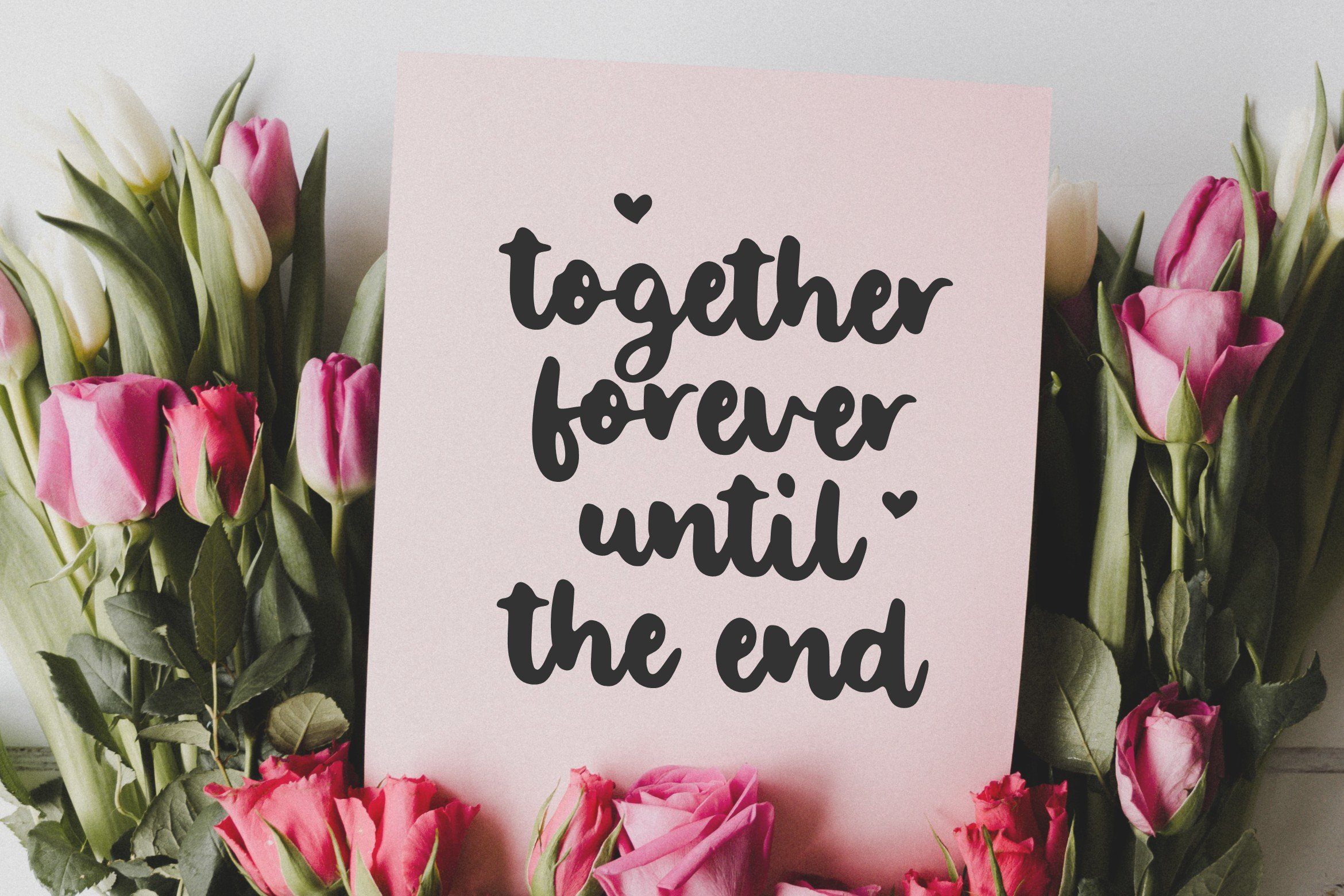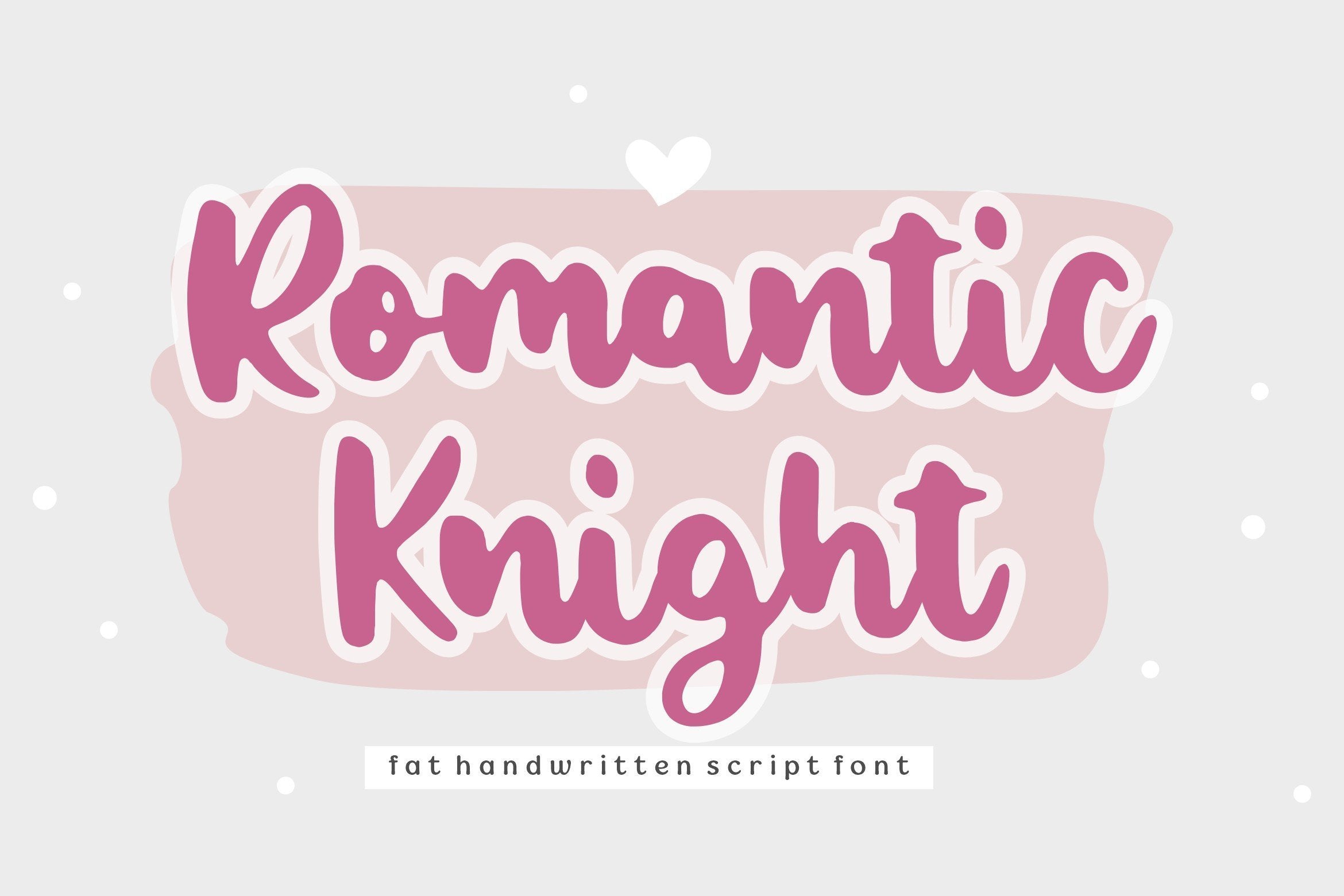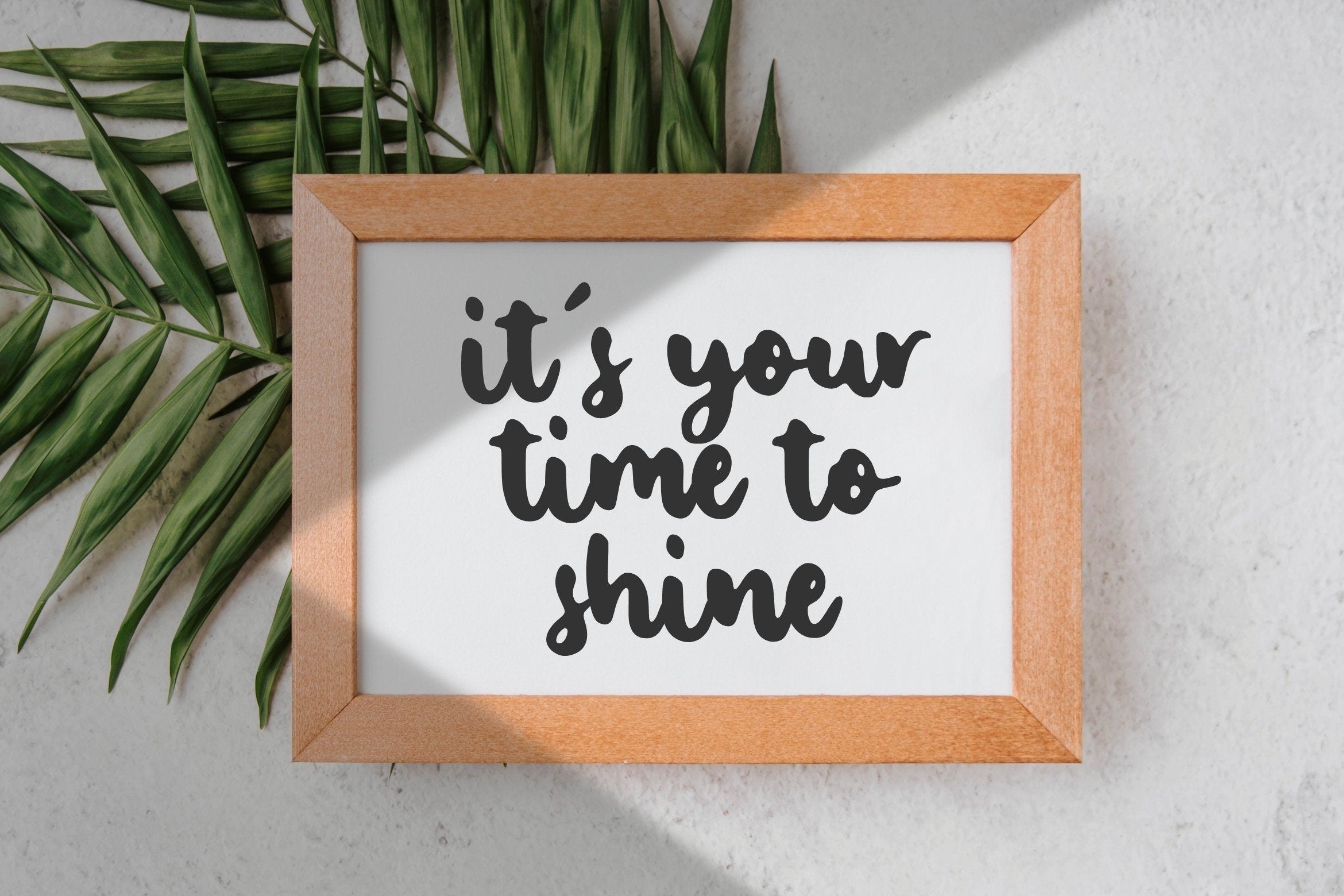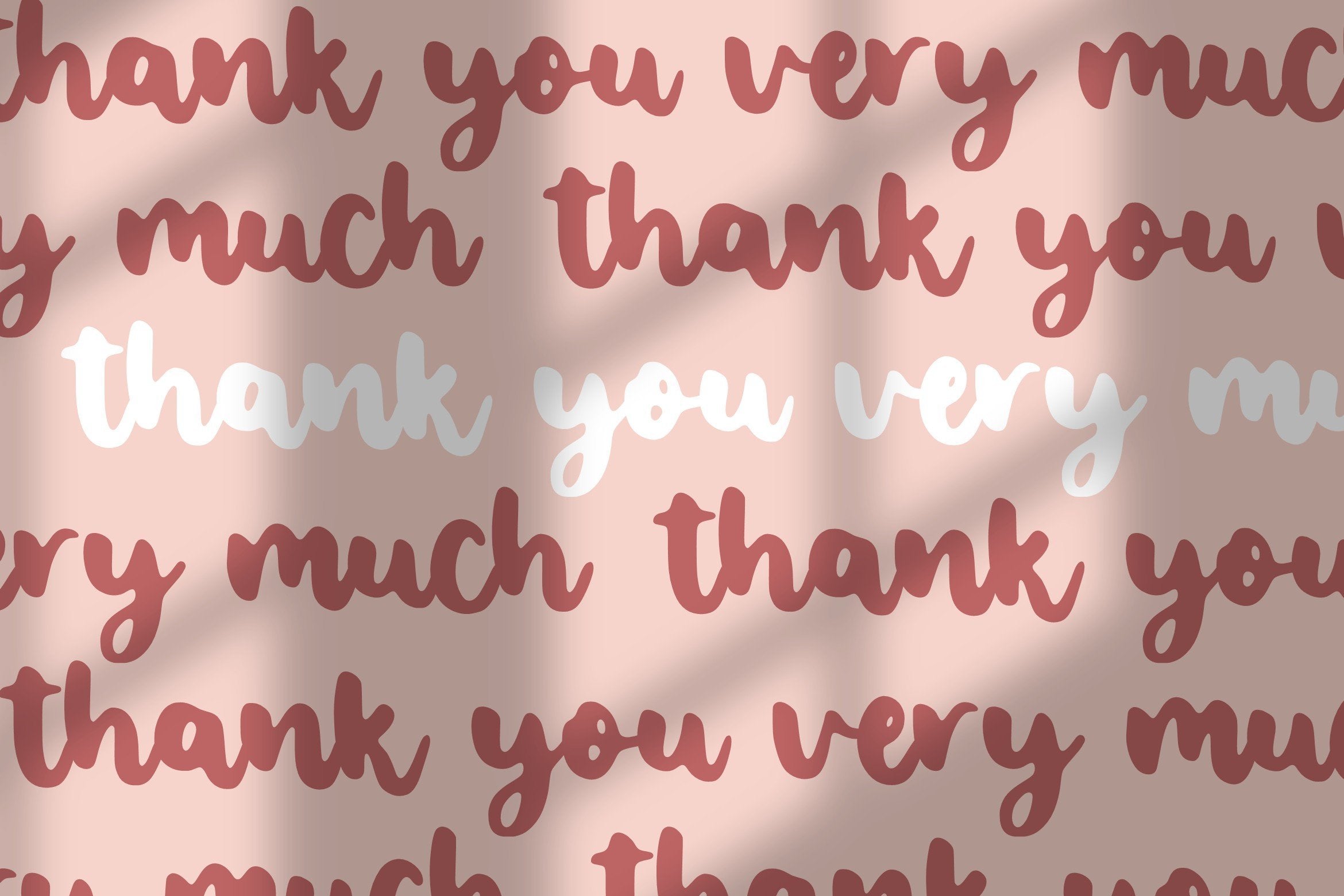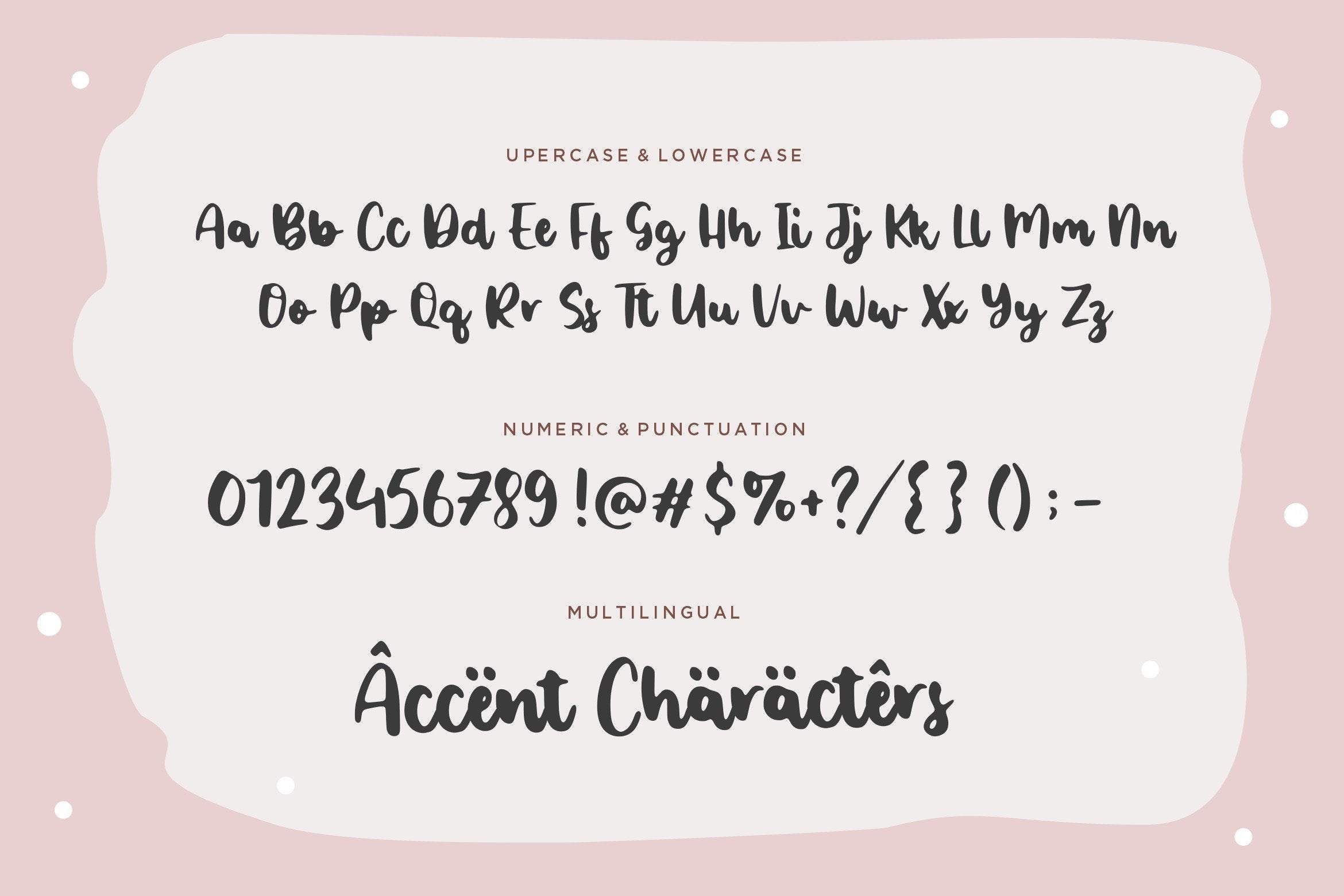
About Romantic Knight Handwritten Script Font
Introducing by Balpirick Studio. Proudly Present, Romantic Knight Font. Romantic Knight is a Handwritten Script Font. Romantic Knight is a flowing handwritten font, described by an elegant touch, perfect for your favorite projects. Fall in love with its incredibly distinct and timeless style and use it to create spectacular designs! This creative font will look great on baby clothing, wall art, fashion, magazines, children’s books, quotes, and social media posts. This font includes TTF, OTF and WOFF, Romantic Knight also multilingual support. Enjoy the font, feel free to comment or feedback, send me PM or email. Thank you!